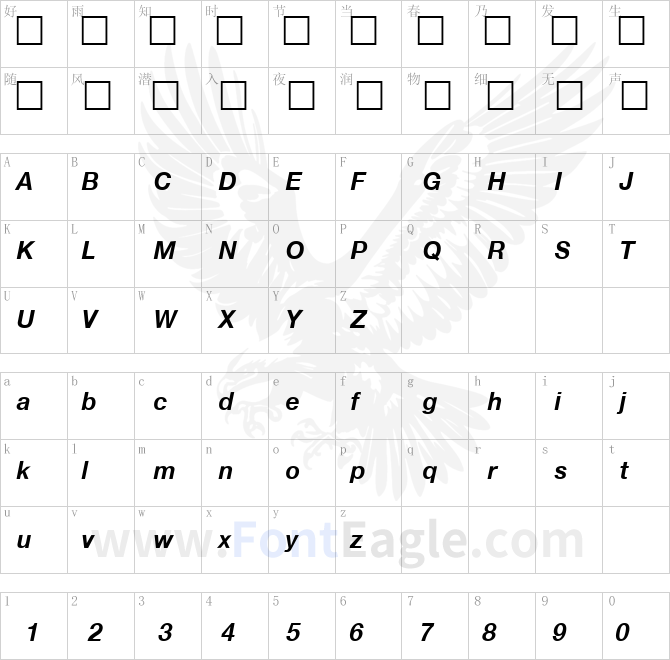
- Font name:PSL-Text
- Font Subfamily ID:Altsys Fontographer 3.5 PSL-Text Bold Italic
- Font Full Name:PSL-Text Bold Italic
- Font Version:Altsys Fontographer 3.5 2/12/95
- Postscript:PSL-TextBoldItalic
- Font Copyright: All rights reserved, Phanlop Thongsuk, 1995